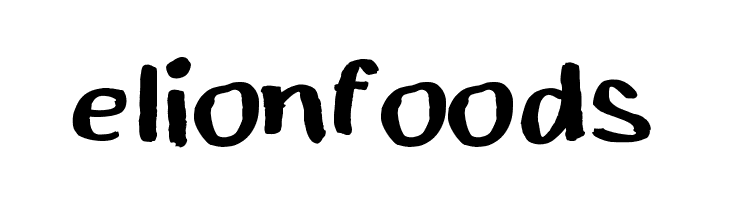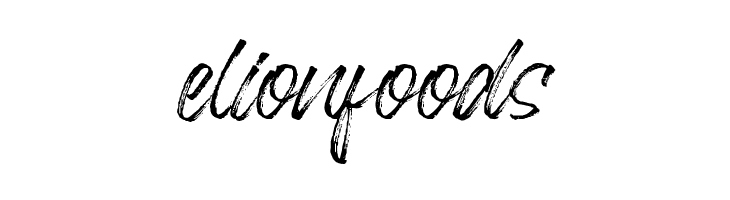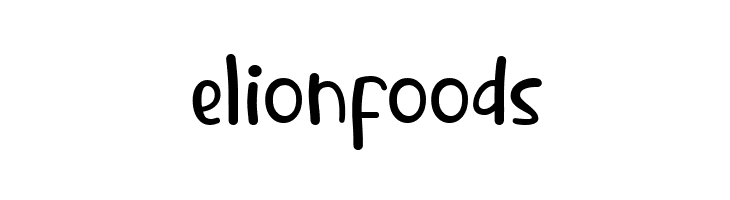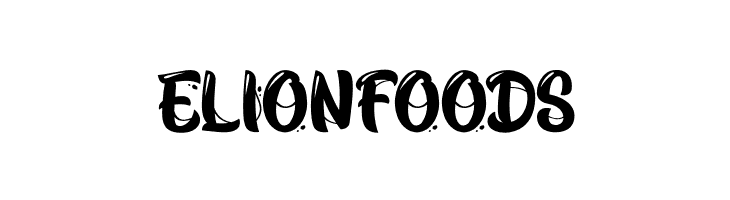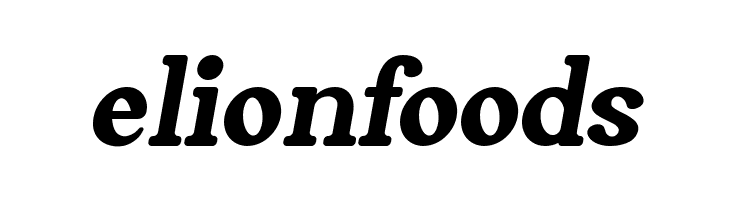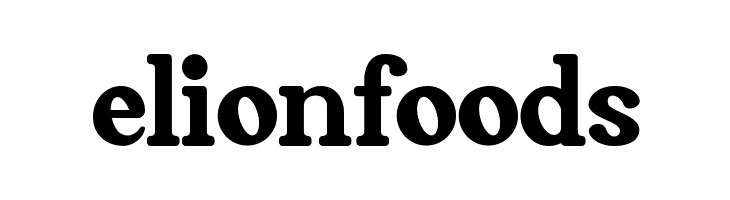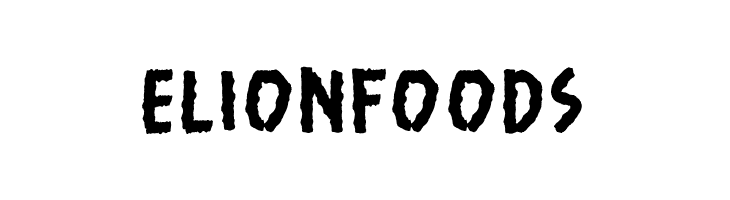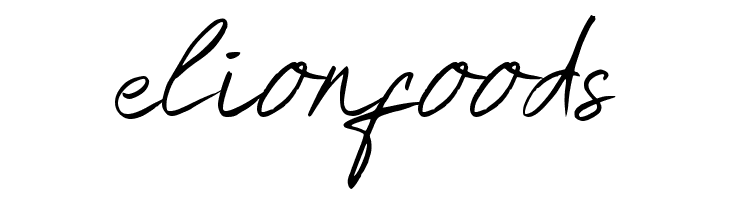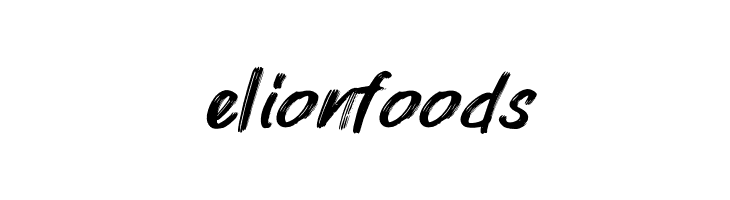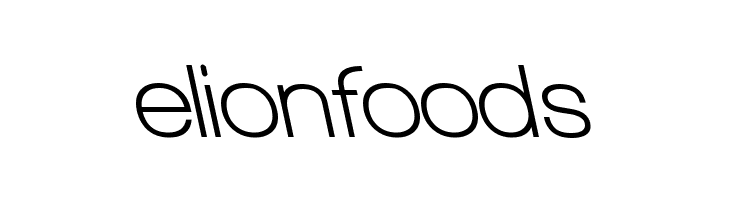
A bold, distressed font with a grunge, hand-painted style.
A bold, playful font with a dotted texture and rounded, bubbly letters.
A bold, pixelated font with a geometric, digital aesthetic.
A geometric, modern font with a digital and futuristic style.
A quirky, modern font with elongated, narrow characters and rounded edges.
A dynamic and fluid handwritten font with expressive letterforms.
A bold, geometric font with a futuristic and tech-inspired design.
A modern, italicized font with a sleek, futuristic design.
A bold, hand-drawn style font with a playful, chalk-like appearance.
A dynamic brush-style font with bold, expressive strokes.
A bold, expressive handwritten font with playful splatter embellishments.
Elegant serif font with an italic slant, ideal for sophisticated designs.
A bold, classic serif font with moderate contrast and slightly condensed proportions.
A bold, hand-drawn font with a playful and irregular style.
A fluid, cursive font with a handwritten style and consistent stroke thickness.
A fluid and elegant handwritten cursive font with dynamic strokes.
A bold, futuristic font with geometric and digital-inspired elements.
A bold, rugged handwritten font with irregular, jagged edges.
A bold, brush-style font with dynamic, artistic strokes.
A sleek, ultra-condensed sans-serif font with a modern, minimalistic design.
A bold, reverse oblique sans-serif font with a modern and sleek design.
A geometric sans-serif font with a modern, clean design and uniform stroke width.
A modern, oblique font with thin, elongated characters and a sleek, minimalist style.
( Fonts by GemFonts - Typotheticals - Graham Meade - Personal-use only. For commercial use please contact owner. )
A sleek, ultra-expanded font with a modern and minimalist design.
( Fonts by GemFonts - Typotheticals - Graham Meade - Personal-use only. For commercial use please contact owner. )
A sleek, modern oblique sans-serif font with a semi-bold weight.
A bold, reverse oblique sans-serif font with a modern and dynamic style.
A bold, oblique font with a modern and dynamic style.